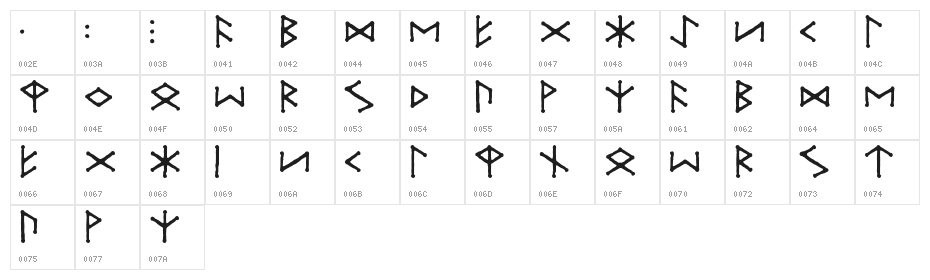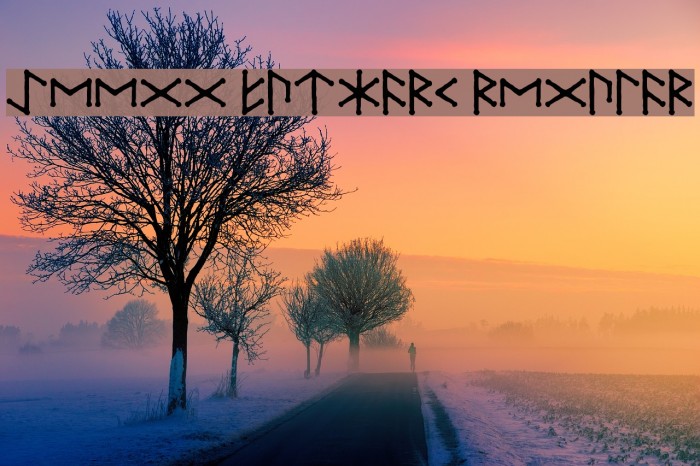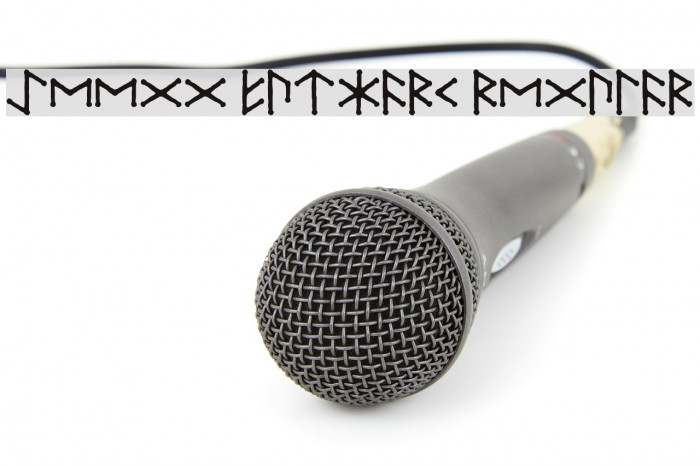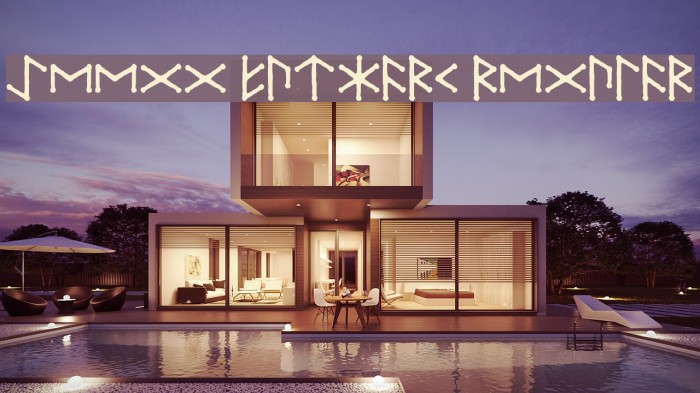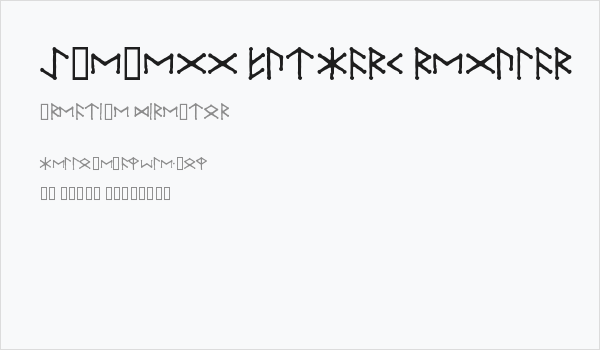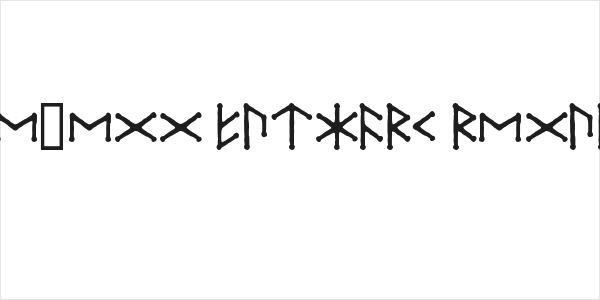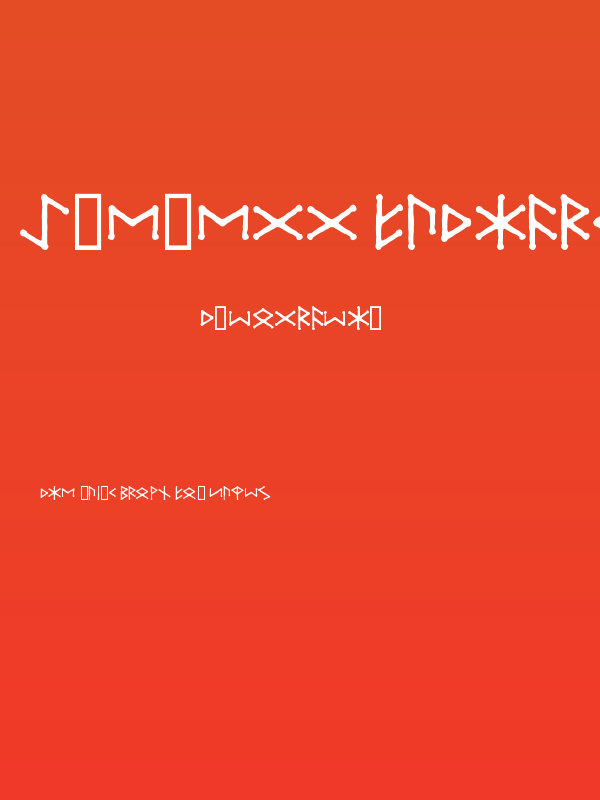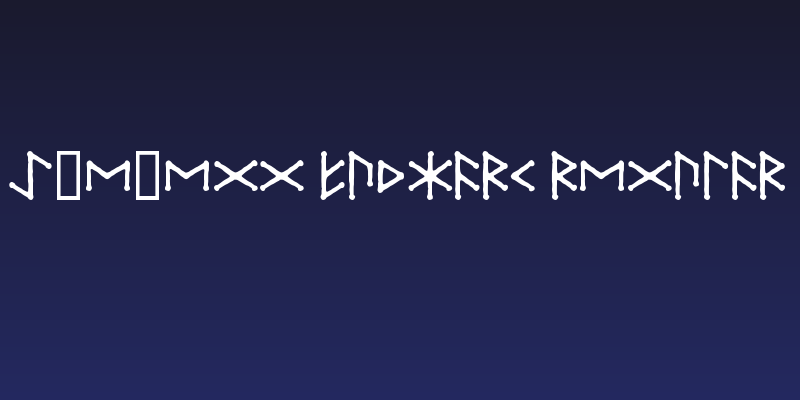
Ice-egg Futhark Regular Font
Ice-egg Futhark Regular Description
This font is inspired by ancient runic alphabets, featuring angular and geometric shapes that evoke a sense of mystery and antiquity. The characters are constructed with straight lines and sharp angles, reminiscent of inscriptions carved into stone or wood. The uppercase letters are bold and striking, while the lowercase letters maintain a consistent style, ensuring readability. The numbers and special characters follow the same design principles, integrating seamlessly with the alphabet. This font is perfect for projects that require a historical or mythical touch, such as fantasy novels, games, or themed events.